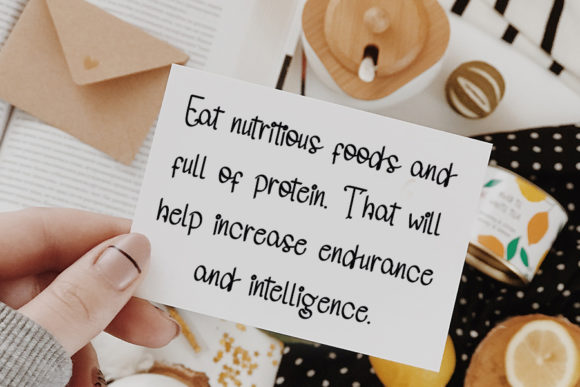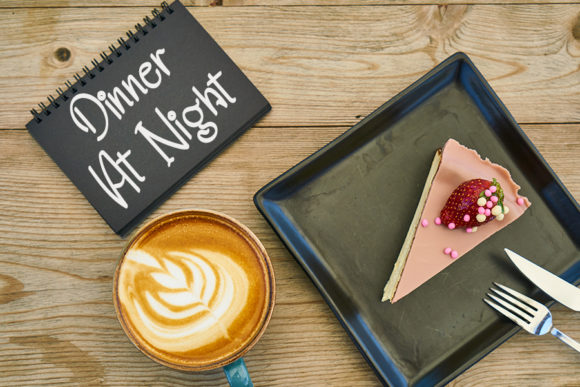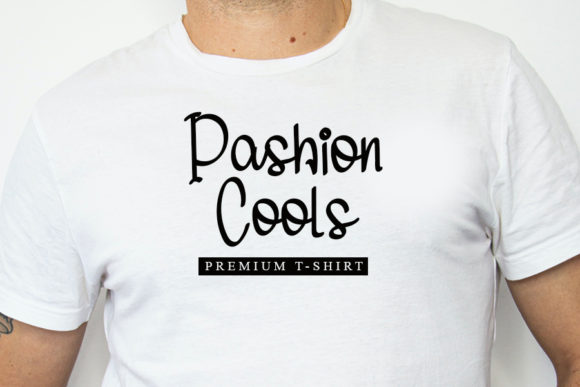
About White Sugar Font
White Sugar is a cute and charming handwritten font. Not too thin and not too thick, balanced and varied, this font was designed to enhance the beauty of your projects.